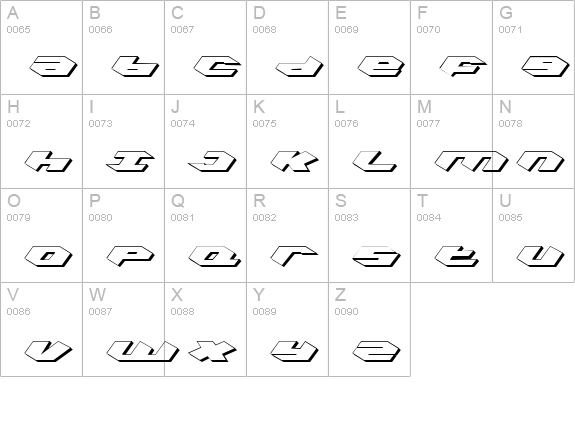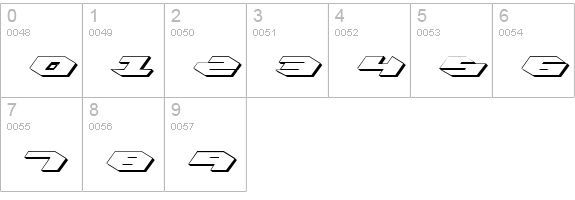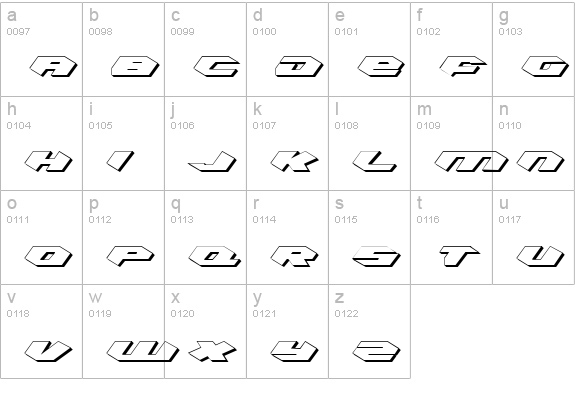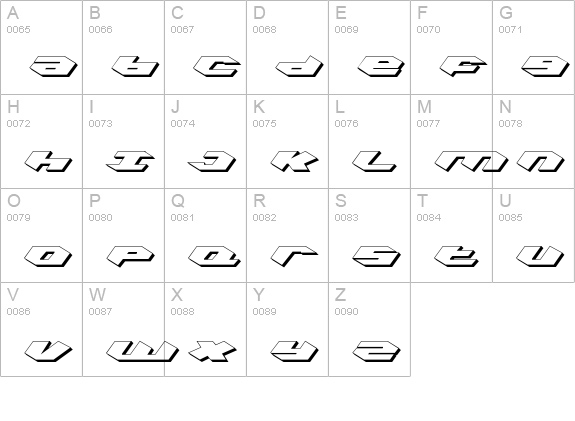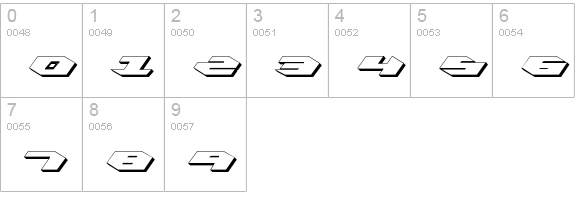
Kubrick Shadow font is a stylish and modern typeface that exudes sophistication and elegance. With its sleek lines and unique shadow effect, this font is perfect for adding a touch of class to any design project. Whether you're creating a logo, poster, or website, Kubrick Shadow font is sure to make a bold statement. What makes Kubrick Shadow font even more appealing is that it is completely free to download. You can easily access this stunning font at FontsMarket.com, where you can find a wide range of high-quality fonts for all your design needs. Don't miss out on the opportunity to enhance your creations with the distinctive charm of Kubrick Shadow font. Download it today and let your creativity shine!